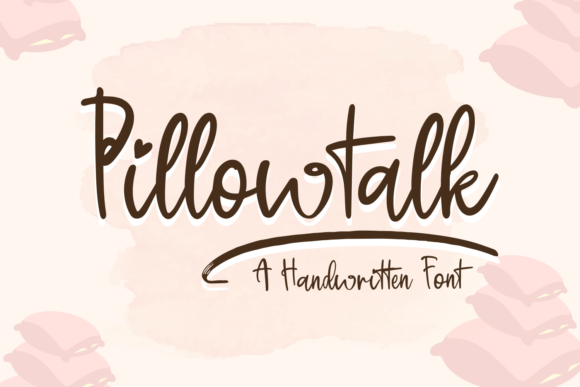
Welcome to the enchanting world of Pillowtalk Font, where creativity knows no bounds and expression flows effortlessly. Step into a realm of elegance and charm, where your designs will blossom with captivating handwritten strokes. Crafted with love by the talented Al Ghul, Pillowtalk Font is not just a mere collection of letters, but an artistic masterpiece that will transform your creative visions into breathtaking realities.
Immerse yourself in the beauty of Pillowtalk's delicate curves and graceful lines, reminiscent of a gentle whisper carried by the wind. Each character dances across the page, carrying with it a story, an emotion, a connection. Whether you're a seasoned graphic artist or a passionate crafter, Pillowtalk Font will become your trusted companion, guiding you through the realms of imagination and innovation.
Picture the magic of your designs adorned with Pillowtalk's enchanting touch. Inspirational posters will come alive with heartfelt messages, while brand promotions will exude a touch of sophistication and allure. Unleash your inner artist and let Pillowtalk be your muse, guiding you to create masterpieces that will leave a lasting impression.
Pillowtalk Font is more than just a font; it's an invitation to embark on a creative journey where your ideas take center stage. Its versatility knows no limits, allowing you to effortlessly weave it into various design projects. From eye-catching logos and branding materials to whimsical invitations and personal stationery, Pillowtalk Font will add a touch of elegance and uniqueness to every creation.
So, dear creatives, embrace the beauty of Pillowtalk Font and unlock the potential within your imagination. Let its enchanting strokes carry your designs to new heights, leaving a trail of beauty and inspiration wherever they go. Step into the world of Pillowtalk Font, where creativity flourishes and dreams take flight.